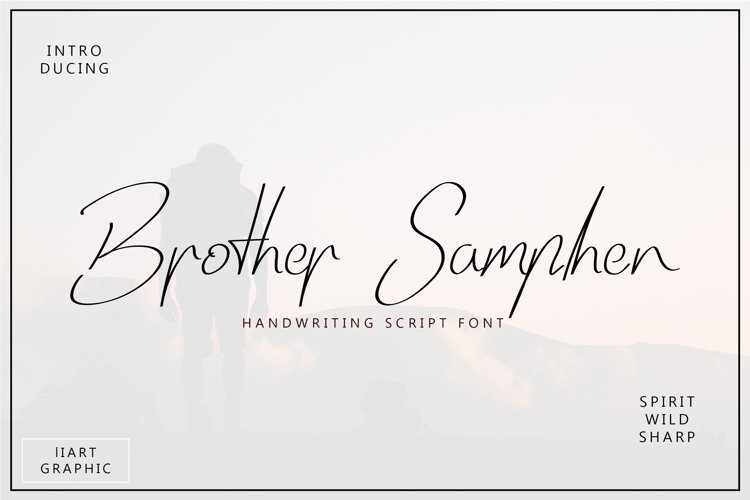
Meet our newest product, we call this product Brother samphen font.
Brother samphen font are modern handwritte,
Whit a sweet touch and beautiful indentation in each letter.
Brother samphen font is very nice to use on:
Wedding invitation,fashion magazine,logos,signatures,and photography
Stylistic Alternates
Ligatures
Stylistic sets
Multilingual Support